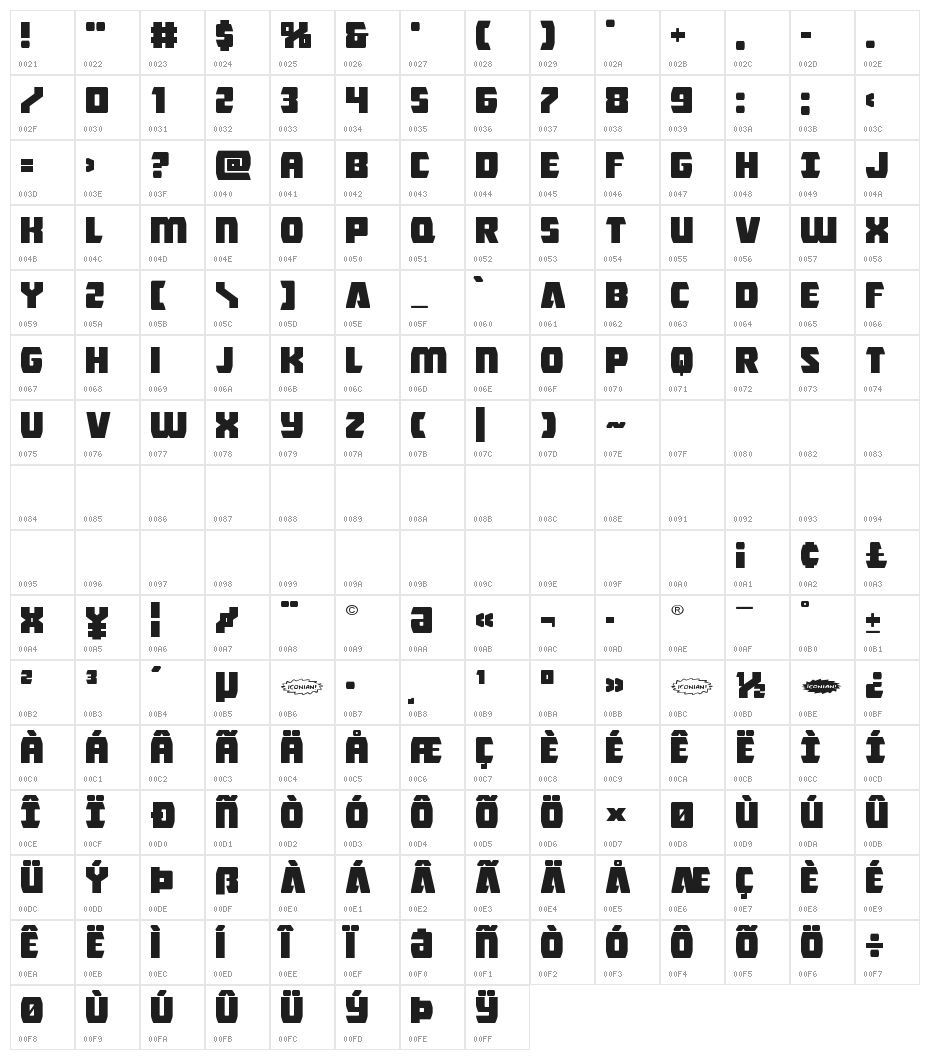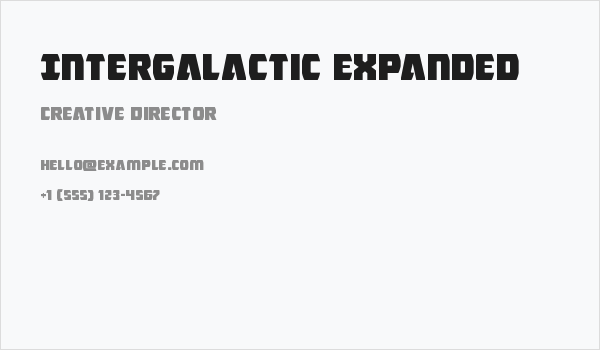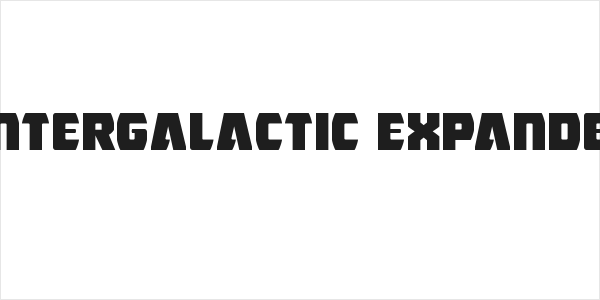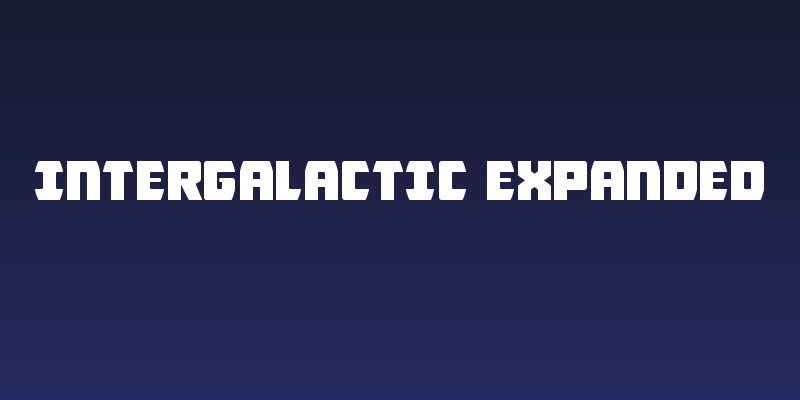
Intergalactic Expanded Font
Intergalactic Expanded Description
This font features a bold and futuristic design with a distinctly geometric structure. The characters are wide and blocky, giving them a strong presence on the page. The style is reminiscent of science fiction themes, with sharp angles and a uniform thickness throughout each letterform. The uppercase and lowercase letters maintain a consistent height, contributing to a cohesive and balanced appearance. The numerals and special characters are designed to match the boldness and angularity of the alphabet, ensuring a harmonious look across all text elements. This font's expanded width and solid construction make it ideal for impactful headlines and titles.
| Proposed Projects | Ideal for science fiction book covers, movie posters, video game titles, and branding for tech companies. |